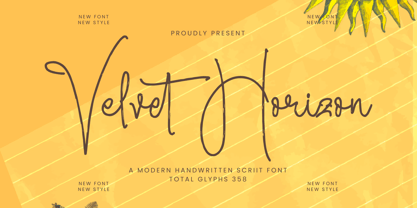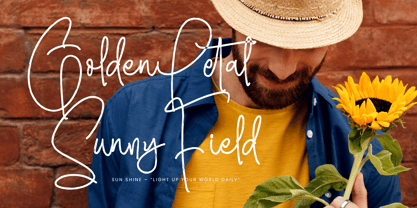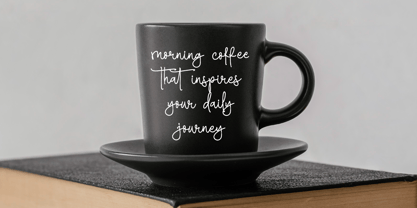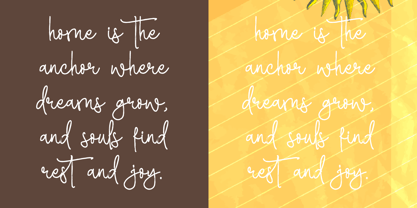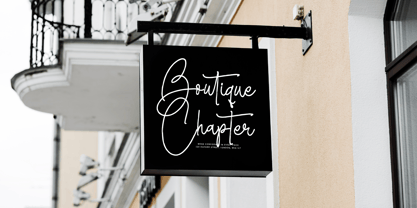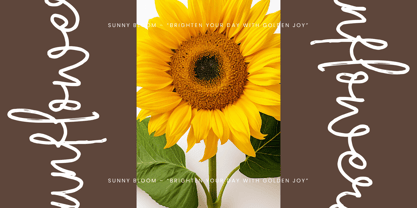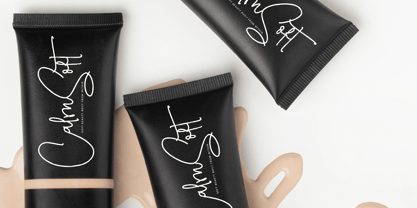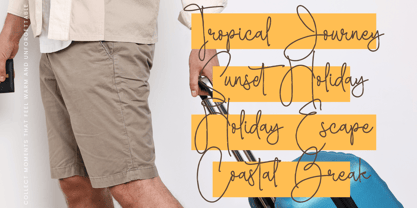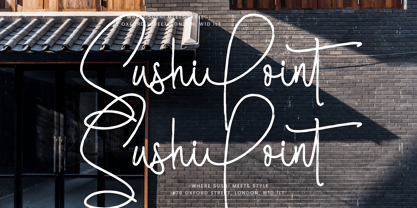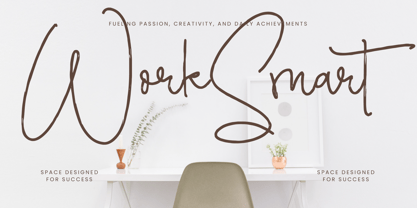
Velvet Horizon
by Integritype
The Velvet Horizon Font Family was designed by Ranndy Rizky Febrian and published by Integritype. Velvet Horizon contains 2 styles and family package options. More about this family
Velvet Horizon is a beautifully crafted brush handwritten script font from Integritype Studio, ideal for a variety of creative projects. This versatile font is perfect for logos, branding initiatives, homeware designs, product packaging, mugs, quotes, posters, shopping bags, t-shirts, book covers, business cards, invitation cards, greeting cards, labels, photography, watermarks, and special events. Its elegant style adds a touch of luxury to any project that demands a premium aesthetic, making it a must-have for designers seeking to elevate their work.
Designers: Ranndy Rizky Febrian
Foundry: Integritype